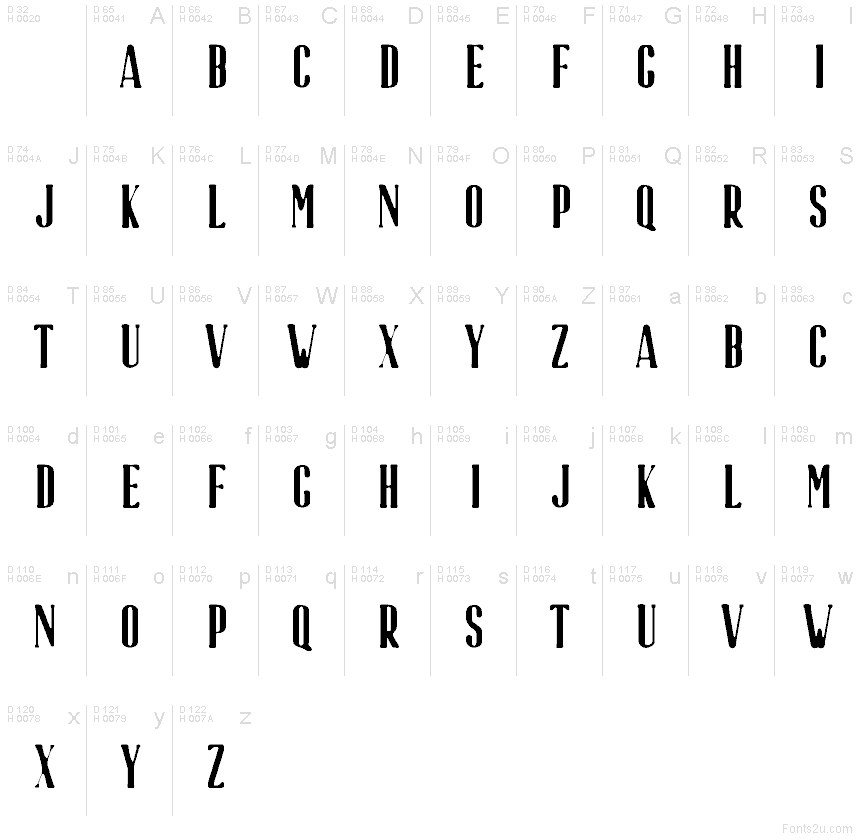
Riffle Blur font is a free condensed serif font with a decorative style designed by Craft Supply Co. The vintage-inspired typeface offers an elegant appearance in all its mentions. Its characters are thin and long, with each letter featuring the legible nature that every reader demands and enjoys.